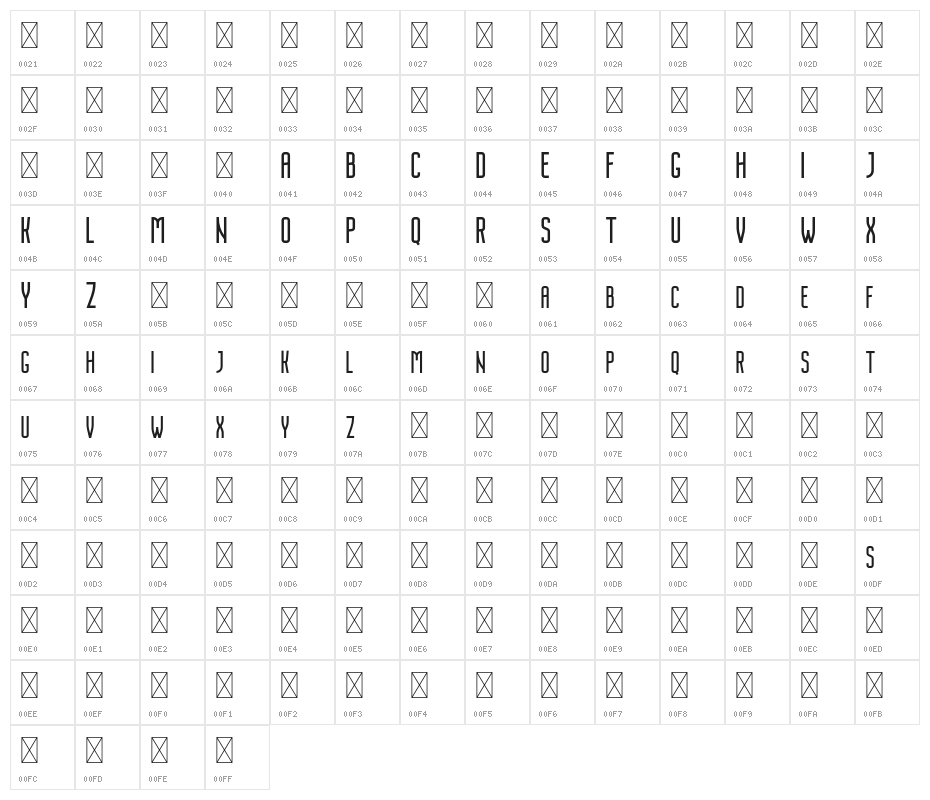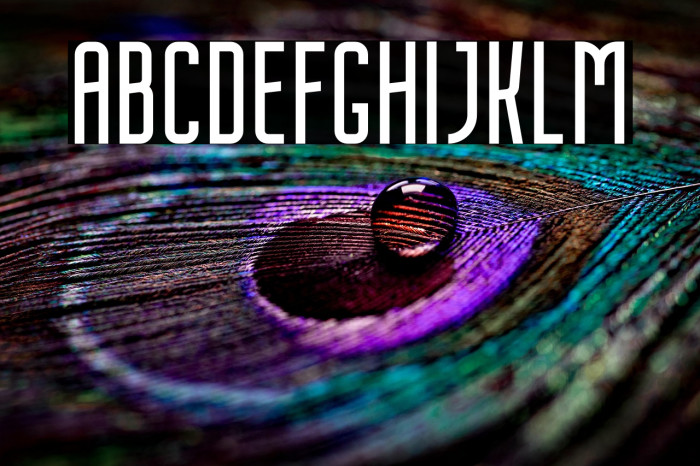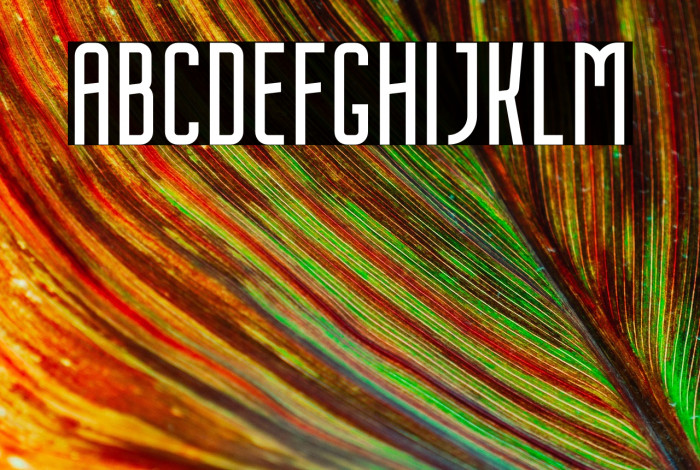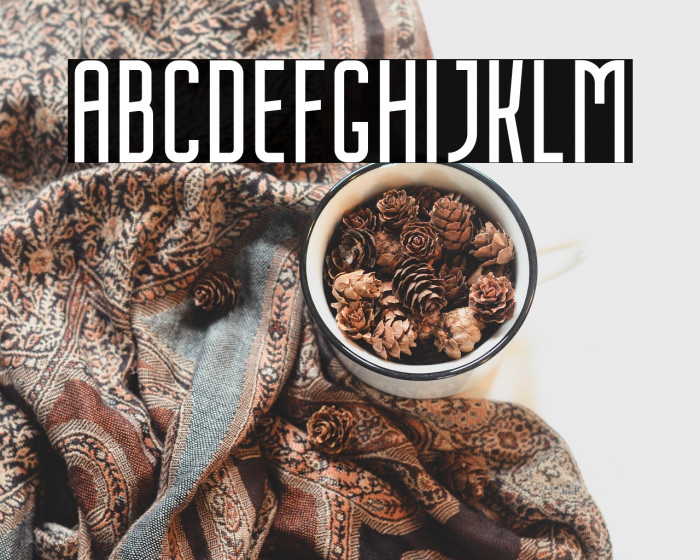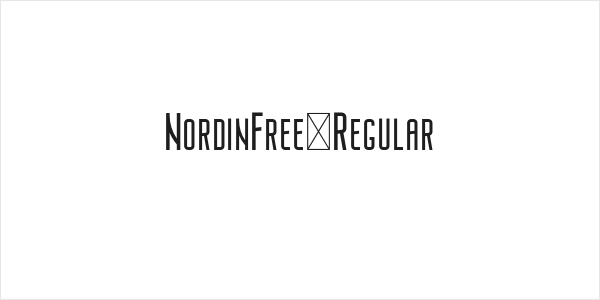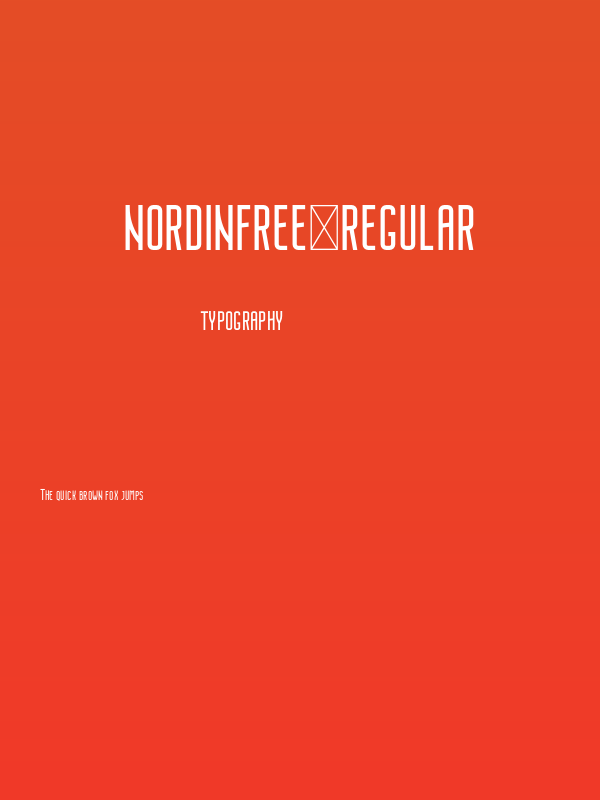
NordinFree-Regular Font
NordinFree-Regular Description
This font features a modern, geometric design with clean lines and a structured appearance. The uppercase letters are tall and narrow, giving a condensed feel, while maintaining a sense of balance and uniformity. The characters are sans-serif, emphasizing simplicity and readability. The font's style is consistent across all letters, providing a cohesive look. The absence of lowercase letters and special characters suggests a focus on bold, impactful text, ideal for headlines or titles. The overall aesthetic is sleek and contemporary, making it suitable for modern design projects.
| Proposed Projects | Ideal for modern branding, headlines, posters, and digital media where a bold statement is needed. |